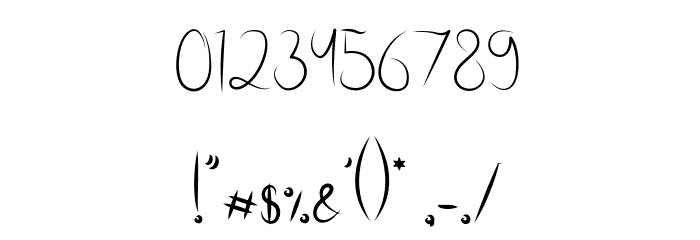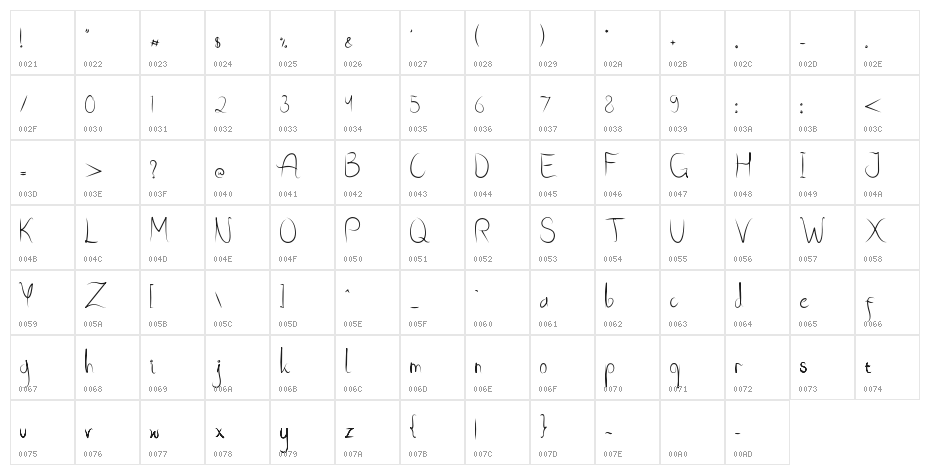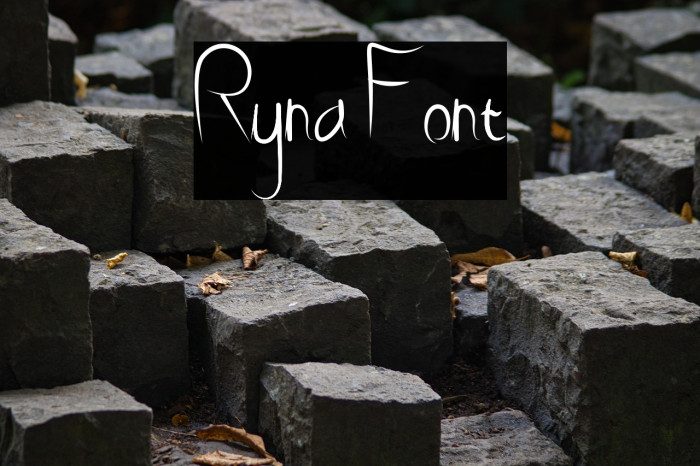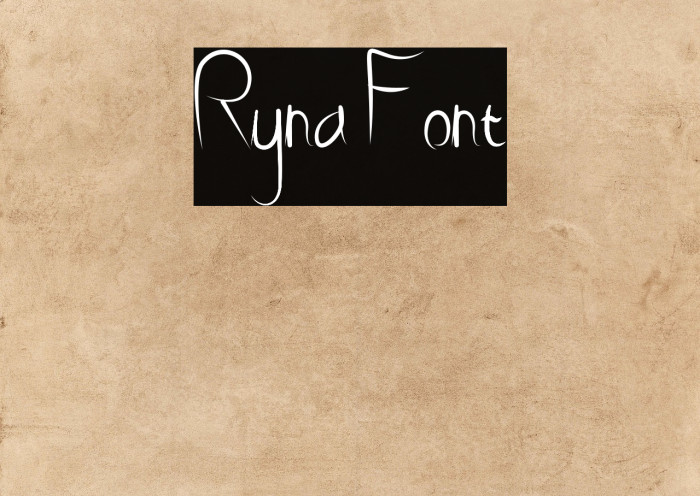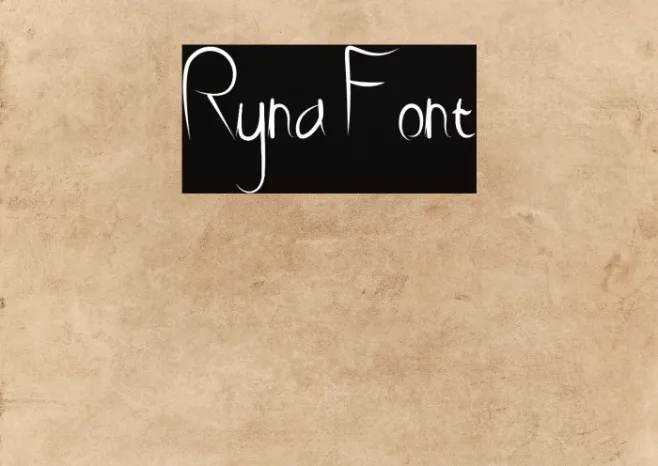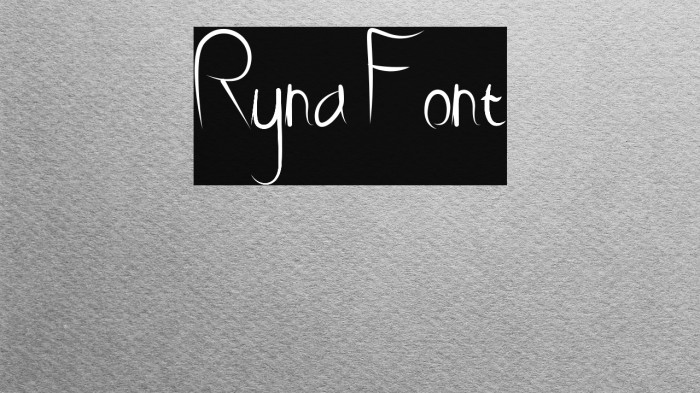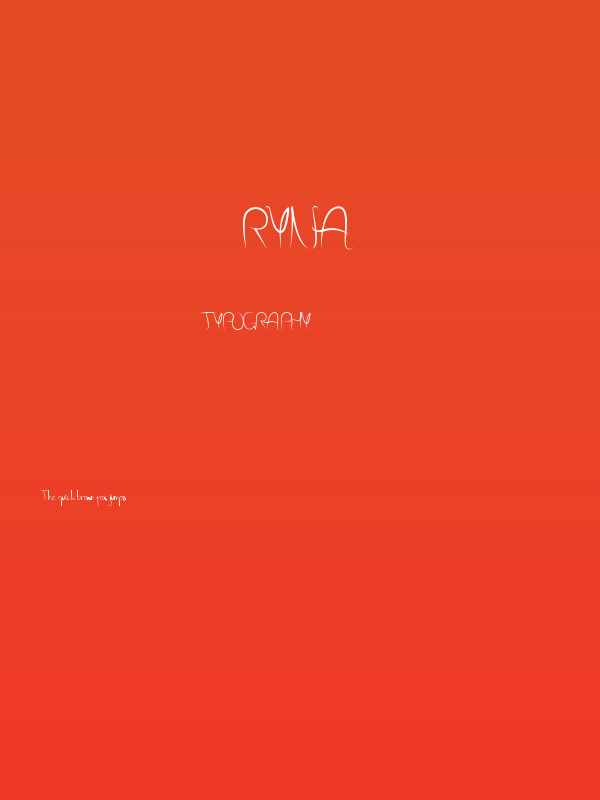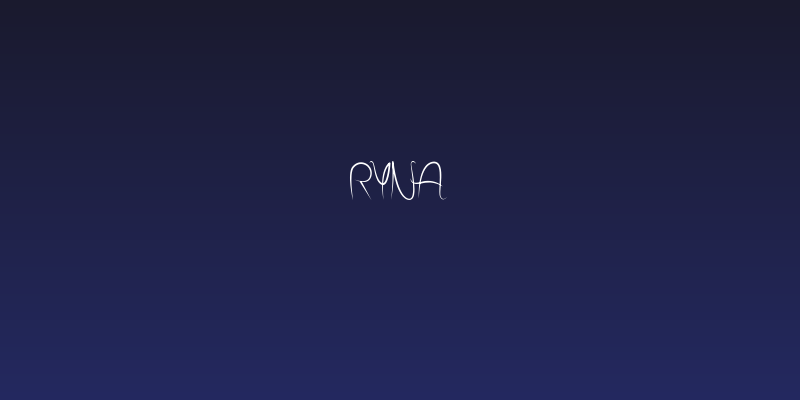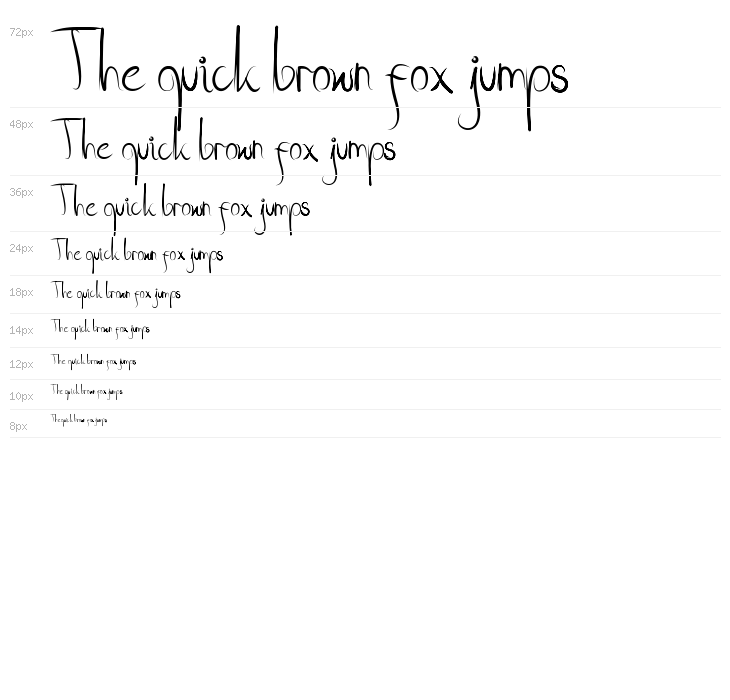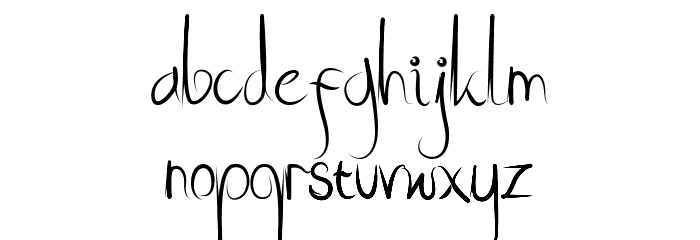
Ryna Font
Ryna Description
This font features an elegant and whimsical design, characterized by its thin, elongated strokes and playful curves. The uppercase letters exhibit a unique blend of sharp angles and smooth curves, creating a dynamic and artistic appearance. The lowercase letters maintain a consistent style, with a slightly more relaxed and flowing form. The numerals are distinct and maintain the same artistic flair, ensuring readability while adding a touch of creativity. Special characters are thoughtfully designed to complement the overall aesthetic, making this font suitable for a variety of creative projects.
| Overall Style | Artistic and Whimsical |
| Use Case | Headlines, Artistic projects, Invitations |
| Proposed Projects | Ideal for wedding invitations, artistic branding, creative posters, and unique logo designs. |